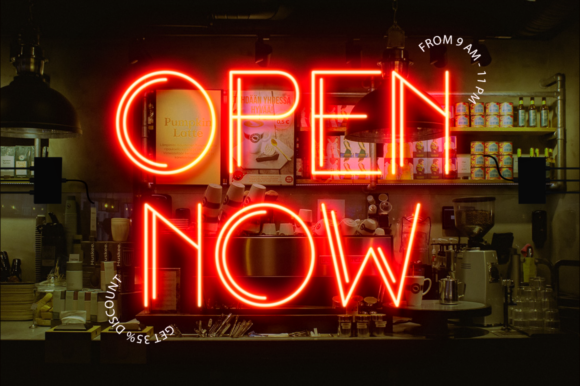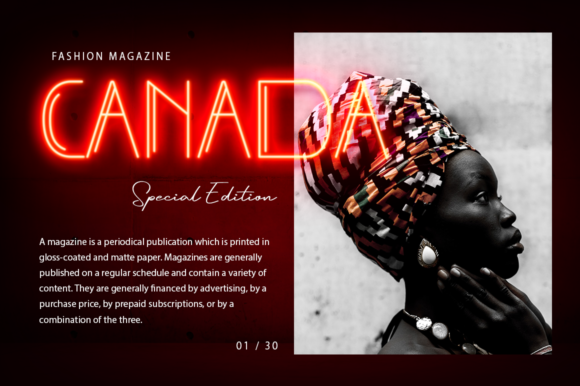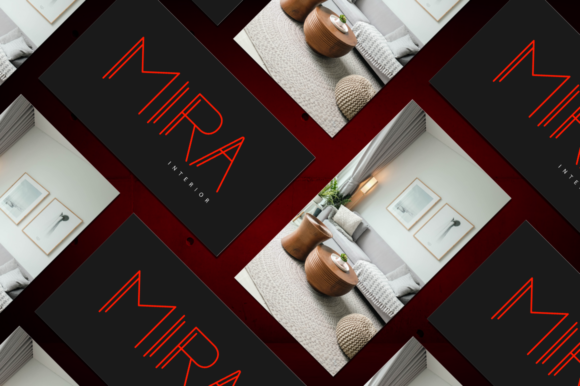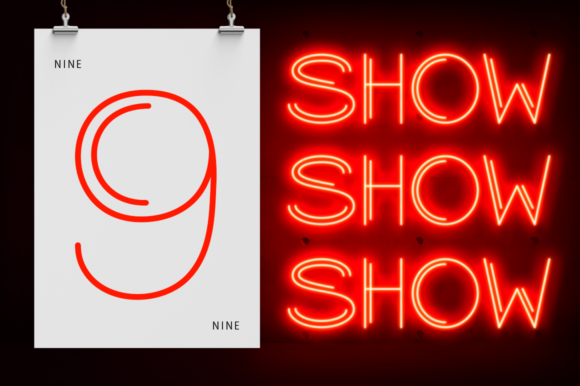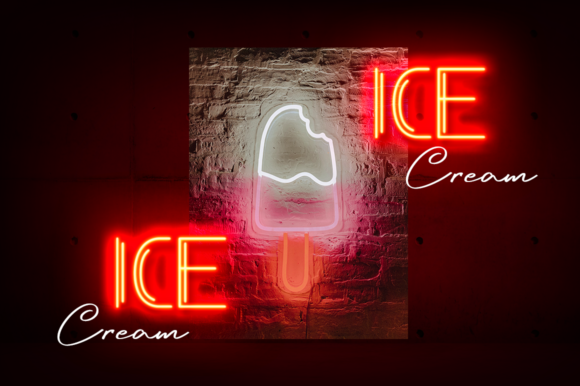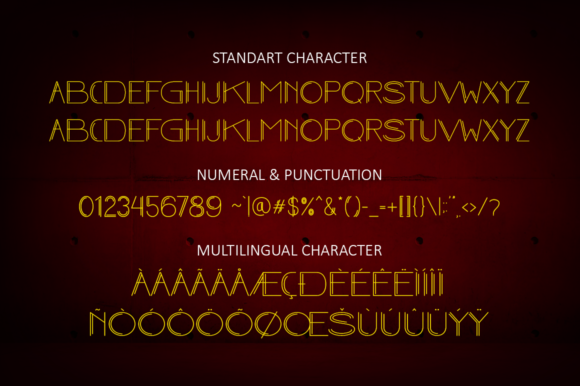
Introduction to Neon Magic Font
As designers, we’ve all been there – stuck on a project, searching for that perfect font to bring it to life. It was one of those moments for me when I stumbled upon the Neon Magic Font. I was working on a retro-themed campaign, and this font was like a breath of fresh air. Its cool and retro vibe instantly elevated my design, making it stand out from the crowd.
The Neon Magic Font is more than just a design resource – it’s a game-changer. Its versatility and high quality make it an ideal choice for a wide range of creative projects, from advertisements to social media graphics. And the best part? It’s completely free to download, allowing you to experiment with it without any constraints.
With its transparent background and sleek design, the Neon Magic Font is a valuable addition to any designer’s toolkit. Whether you’re a seasoned pro or just starting out, this font is sure to spark some creative magic in your next project.
Key Features of Neon Magic Font
- Unique blend of futuristic and magical elements, perfect for creative projects that require a touch of magic.
- High-quality design resource with a transparent background, allowing for seamless integration into various design environments.
- Includes a range of font sizes and resolutions, from 24px to 72px, to cater to various design needs.
- Features a bold and vibrant aesthetic, making it an ideal choice for designers seeking to add a pop of color to their creative project.
- Designed to be highly legible, even at small font sizes, ensuring that the text remains clear and readable in various contexts.
Honest Review: Neon Magic Font
I recently stumbled upon the Neon Magic Font and I’m excited to share my honest review. As a designer, I’m always on the lookout for high-quality design resources to elevate my creative projects. The Neon Magic Font definitely delivers.
- ✨ It’s perfect for creating eye-catching headlines and titles that pop.
- ✨ The transparent background option allows for seamless integration with any design.
- ⚠️ The font may not be suitable for body text due to its bold and attention-grabbing nature.
- ⚠️ Some users may find the font too flashy or over-the-top, depending on their design style.
Overall, I’m impressed with the Neon Magic Font and would definitely recommend it for creative projects that require a bold and eye-catching touch. Just be mindful of its limitations and use it sparingly to avoid overwhelming your design.
Tips for Getting the Most Out of Neon Magic Font
Use the font on a transparent background to give your designs a unique and modern look. Experiment with different font sizes and colors to add visual interest. Combine the font with other design elements, such as graphics and shapes, to create a cohesive and engaging design.
Common Use Cases for Neon Magic Font
The Neon Magic Font is a versatile design resource that can be used in a variety of creative projects. Some common use cases include:
- Social media graphics and ads
- Event flyers and posters
- Business logos and branding